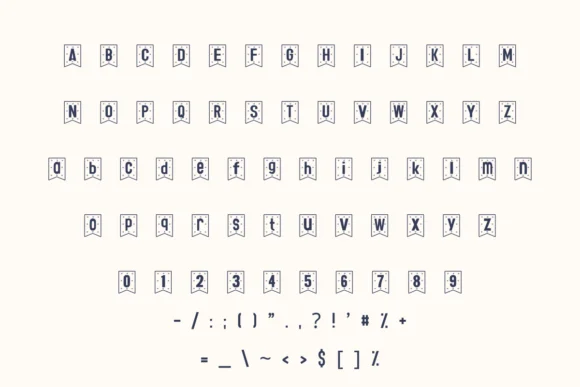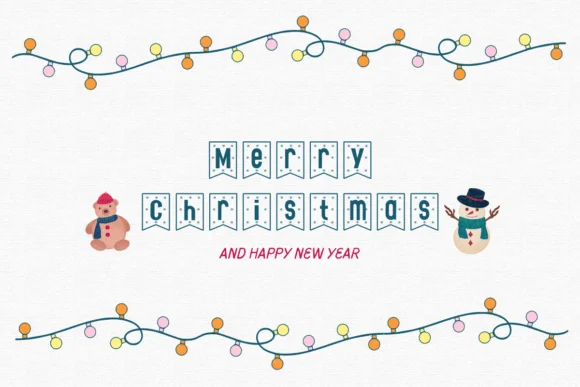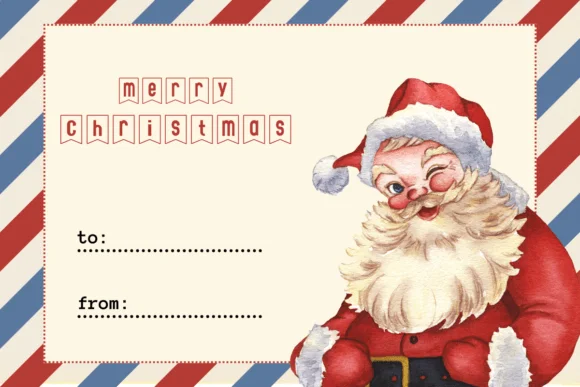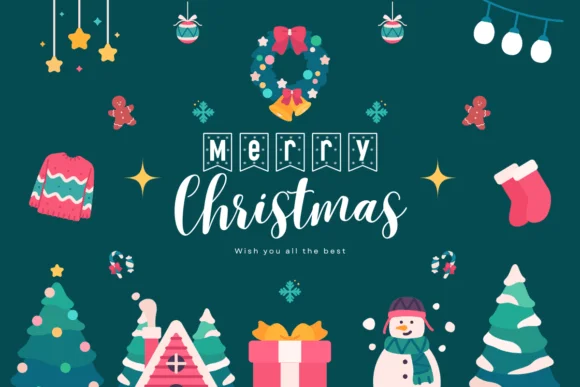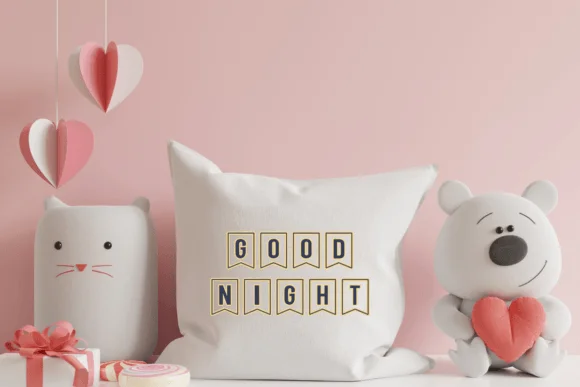
Merry Christmas Font
This delightful font is perfect for traditional Christmas cards, festive holiday advertisements, joyful seasonal banners, Christmas party decorations, merry holiday invitations, cheerful Christmas websites, festive email campaigns, happy Christmas packaging, seasonal marketing materials, and celebratory Christmas messaging projects.
Merry Christmas Font is exciting because it captures the timeless tradition and heartfelt sentiment behind the world's most beloved Christmas greeting, transforming the simple phrase "Merry Christmas" into a visual celebration of holiday joy and goodwill. The font features warm, welcoming letterforms with gentle curves and friendly proportions that embody the sincere wishes for happiness and peace that Christmas represents across cultures and generations. Each character showcases thoughtful design with comforting details and approachable styling that makes readers feel embraced by the genuine spirit of Christmas kindness and community. The design reflects the universal desire to share joy during the holiday season, creating typography that feels like a warm hug from a dear friend wishing you all the happiness that Christmas can bring.
The Merry Christmas Font family includes traditional style variations: Regular, Bold, Light, Classic, and Warm versions. The collection features special greeting elements including welcoming flourishes, kind-hearted accents, friendly star details, and heartfelt ornamental touches. Additional components include warm borders, welcoming frames, traditional decorations, and sincere ornamental designs that enhance the font's merry Christmas greeting appeal and create cohesive heartfelt holiday themes.
Greeting card designers and traditional celebrants will find Merry Christmas Font to be a perfect choice for creating authentic holiday communications that honor the cherished tradition of exchanging Christmas greetings. This lovingly crafted font transforms standard Christmas messages into genuine expressions of goodwill that connect hearts and spread the timeless message of Christmas joy to friends, family, and communities worldwide.
The typeface includes comprehensive character support with traditional styling that maintains excellent readability while conveying the warm sincerity and universal appeal of merry Christmas wishes. The font's friendly design ensures welcoming results across both personal greeting cards and commercial holiday communications.
Perfect for greeting card companies, traditional families, community organizations, and anyone sharing genuine Christmas wishes, this font delivers heartfelt visual impact that communicates sincere goodwill, traditional Christmas values, and the enduring power of simple "Merry Christmas" greetings to bring people together during the most wonderful season of the year.